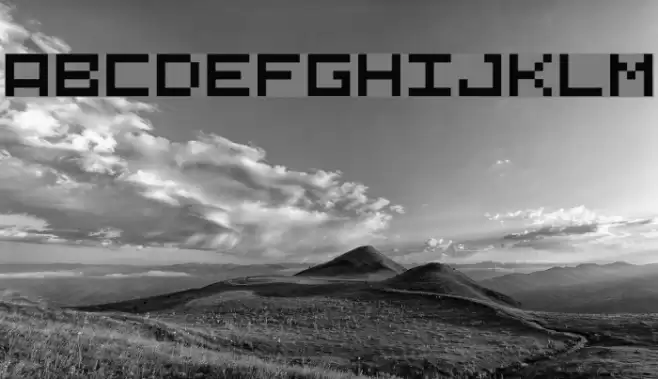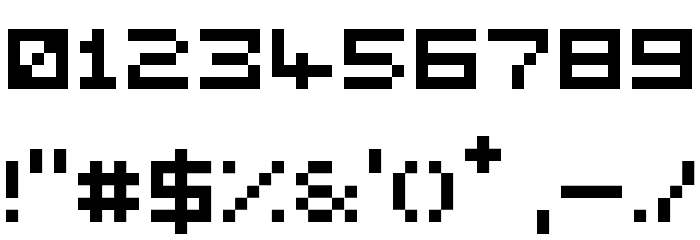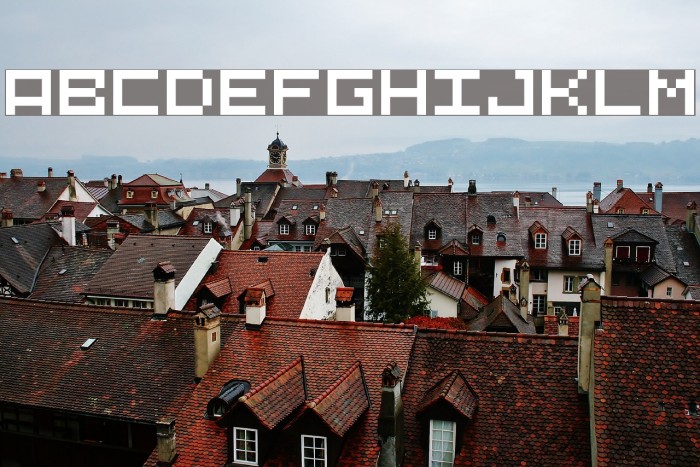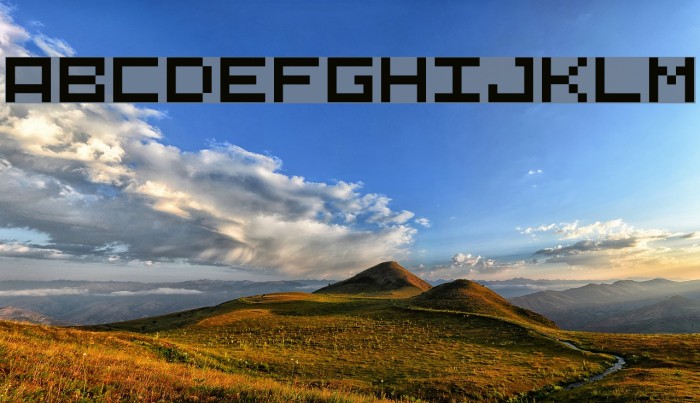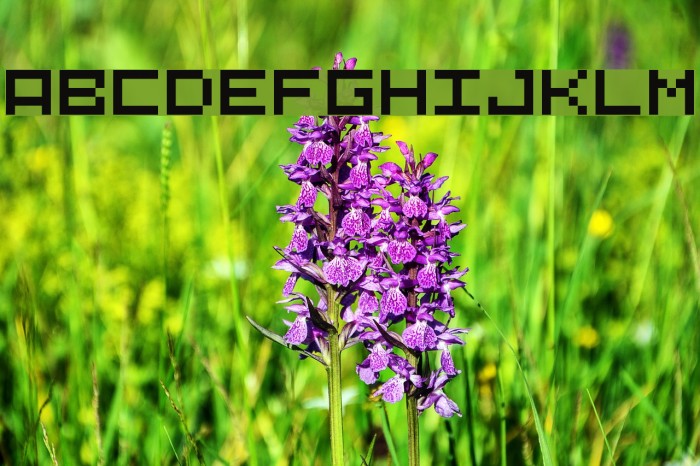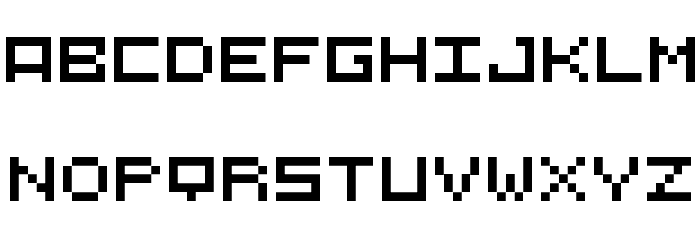
5×5 Font
5×5 Description
This font features a pixelated, blocky style reminiscent of early digital displays and classic video games. Each character is constructed with a grid-like precision, giving it a distinctly retro and digital feel. The uniformity in stroke width and the absence of curves create a mechanical and structured appearance. The uppercase and lowercase letters maintain a consistent height, enhancing the font's geometric nature. Numbers and special characters follow the same design principles, ensuring a cohesive look across all glyphs. This font is ideal for projects that aim to evoke nostalgia or a digital aesthetic.
A pixelated, blocky font with a retro digital style from Pixel fonts.
- Proposed Projects: Ideal for video game design, retro-themed posters, digital art, and tech-related branding.
- Overall Style: Retro, Digital
- Use Case: Headlines, Logos, Display text